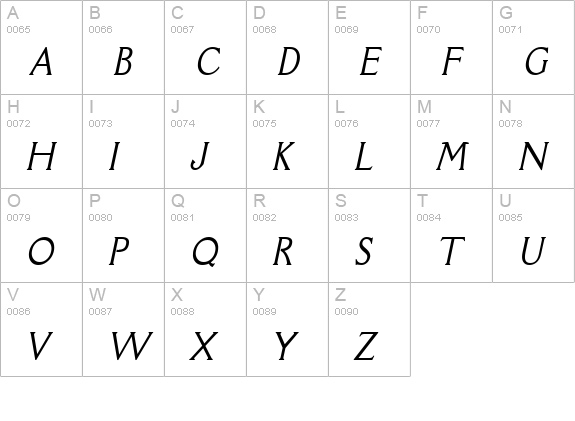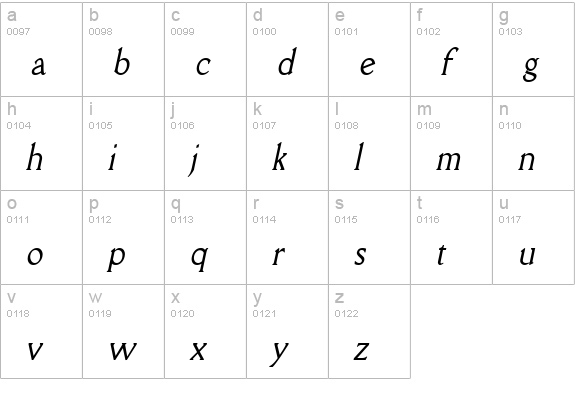
Rory Condensed Italic is a distinctive, condensed-width, italic variant in the Rory typeface family \xE2\x80\x94 well suited to design and typography projects.
Rory Condensed Italic font is a sleek and sophisticated typeface that exudes elegance and modernity. Its unique italicized design adds a touch of style and flair to any project, making it perfect for everything from invitations to branding materials. The condensed aspect of the font allows for efficient use of space without compromising legibility. What sets Rory Condensed Italic font apart is that it is not only aesthetically pleasing, but also completely free to download at FontsMarket.com. This means that you can easily incorporate this stunning font into your designs without breaking the bank. Whether you're a designer looking to add a fresh twist to your projects or a business owner seeking a polished look for your branding, Rory Condensed Italic font is the perfect choice. Download it today and elevate your designs with this versatile and stylish typeface.